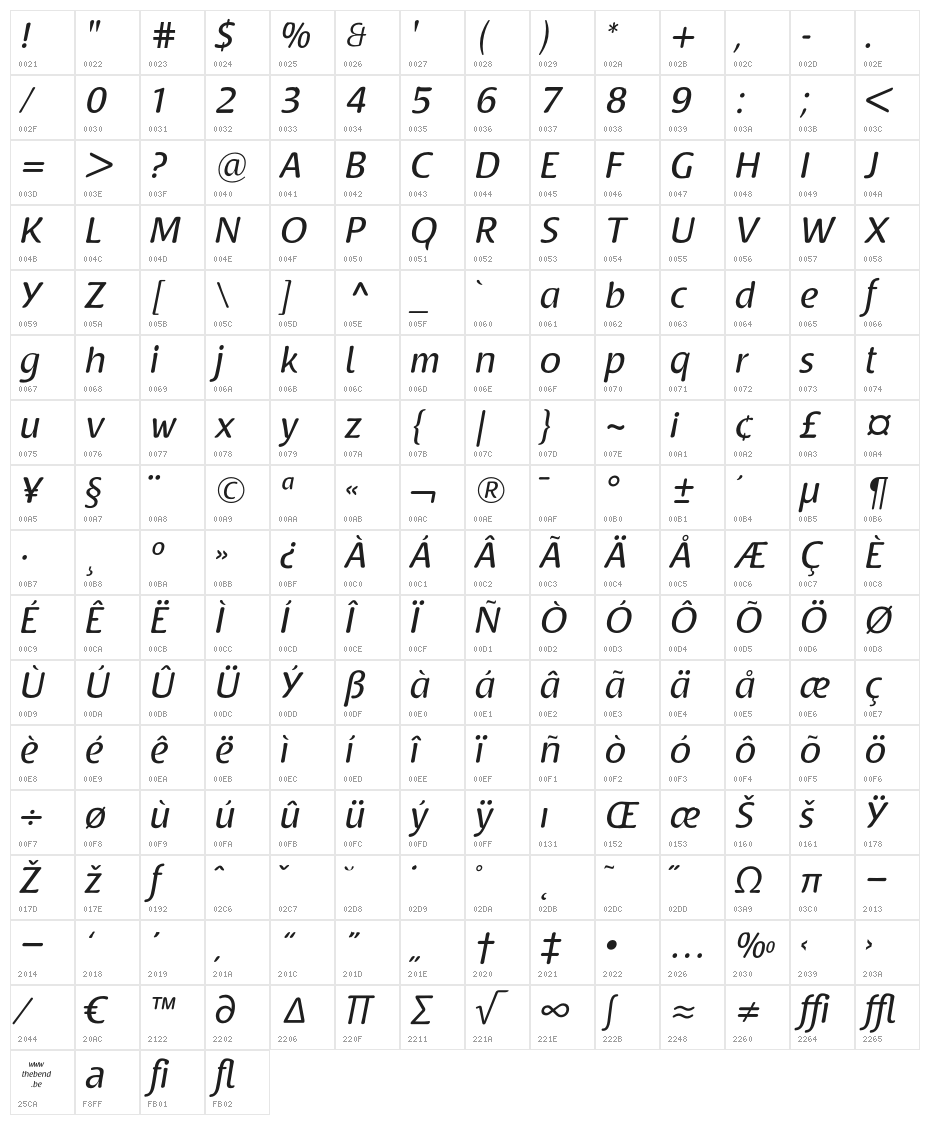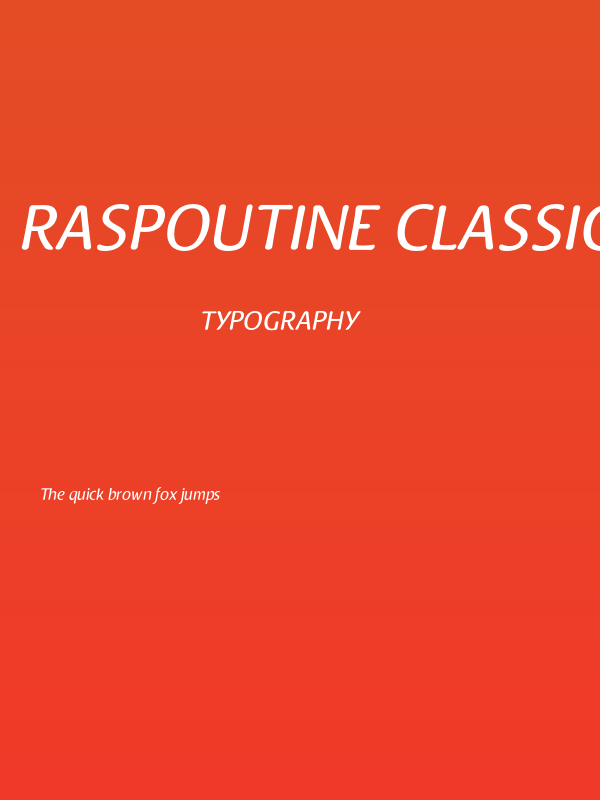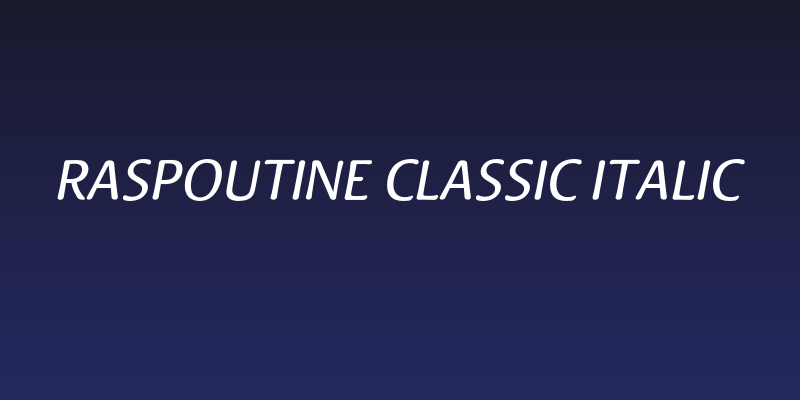
Raspoutine Classic Italic Font
Raspoutine Classic Italic Description
This font features a classic italic style with smooth, flowing curves and a slight slant that gives it an elegant and sophisticated appearance. The characters are well-proportioned, with a consistent stroke width that maintains readability while adding a touch of flair. The uppercase letters are tall and commanding, while the lowercase letters are more rounded and approachable. The numerals are clear and distinct, making them easy to read. Special characters are included, providing versatility for various uses. Overall, this font combines traditional elements with a modern twist, making it suitable for a wide range of applications.
| Proposed Projects | Ideal for projects such as wedding invitations, formal event programs, elegant branding, and editorial design. |